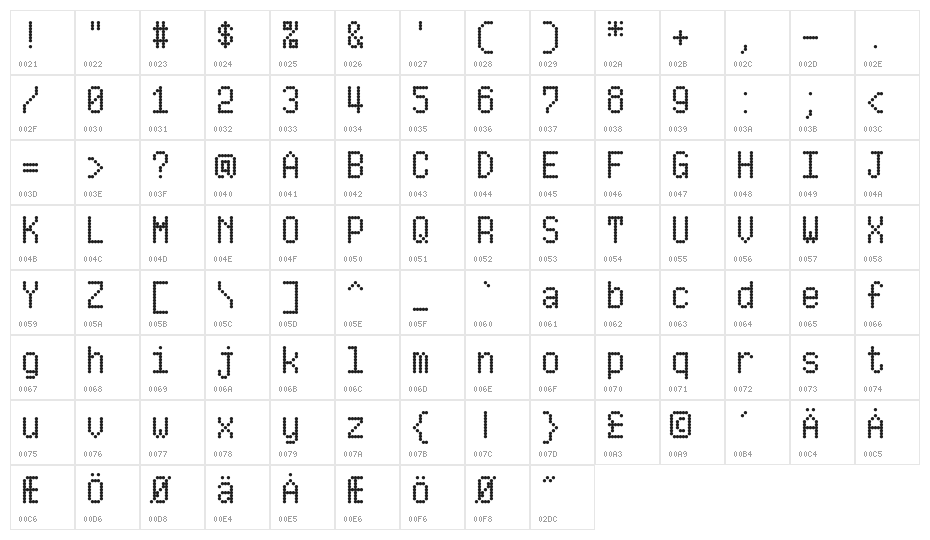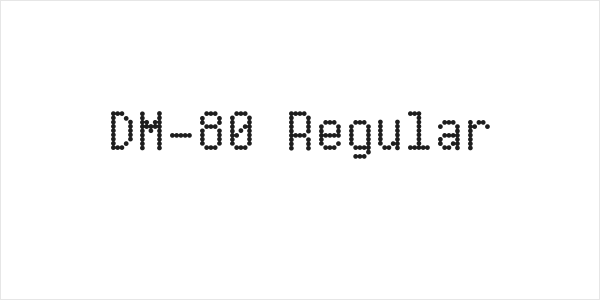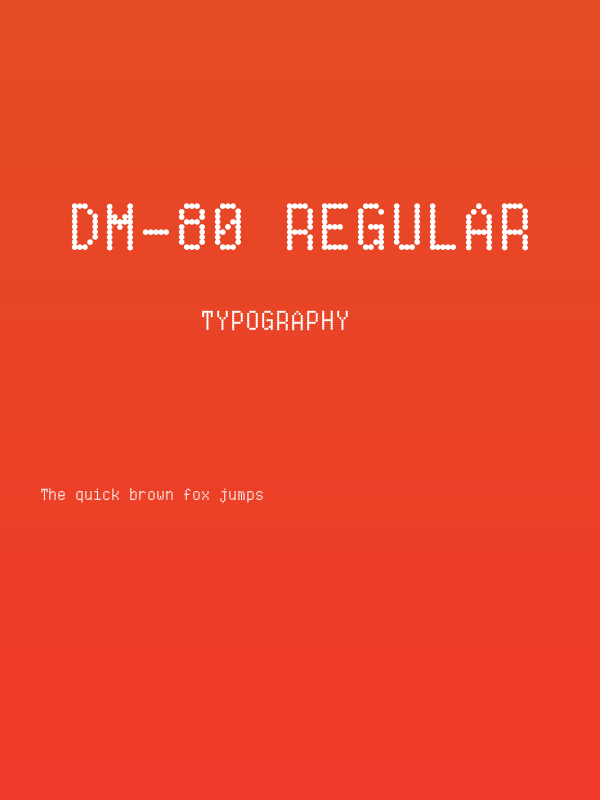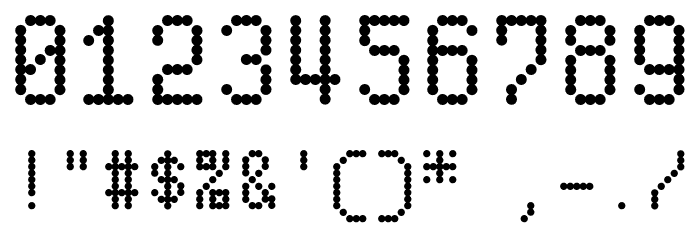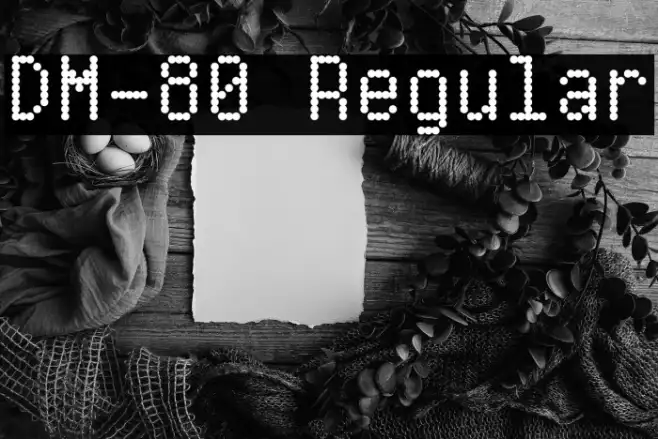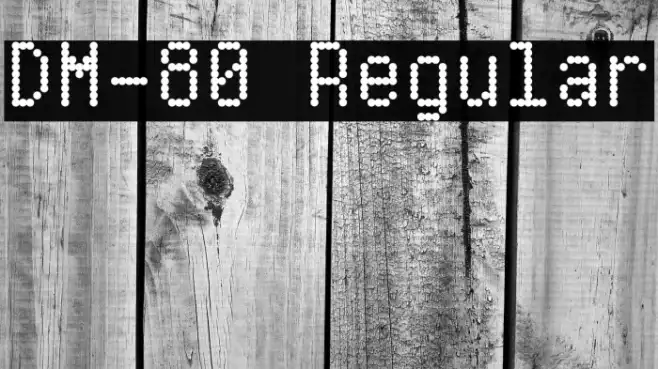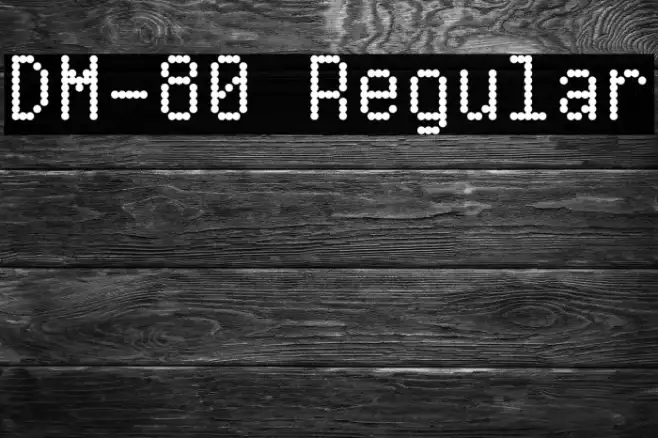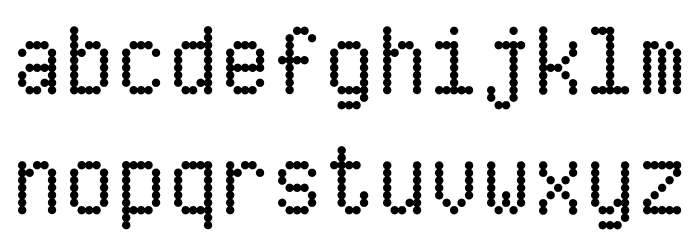
DM-80 Regular Font
DM-80 Regular Description
This font features a unique dot matrix style, reminiscent of digital displays and retro technology. Each character is composed of a grid of dots, creating a pixelated appearance that is both modern and nostalgic. The uniformity of the dots provides a consistent texture across all letters and numbers, while the spacing between the dots ensures legibility. This design is particularly effective for conveying a sense of technological sophistication or vintage computing. The font includes a full set of uppercase and lowercase letters, numbers, and a variety of special characters, making it versatile for various applications.
| Use Case | Headlines, Logos, Digital Displays |
| Proposed Projects | Ideal for digital-themed designs, retro video game graphics, tech branding, and futuristic posters. |